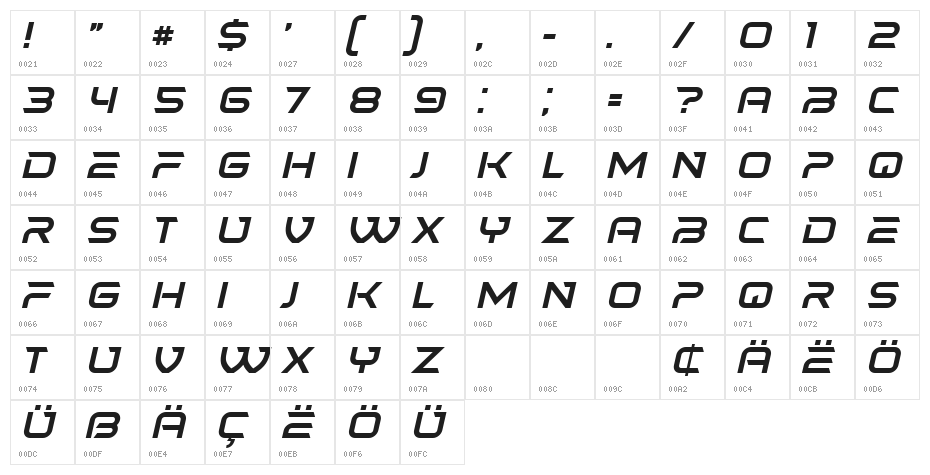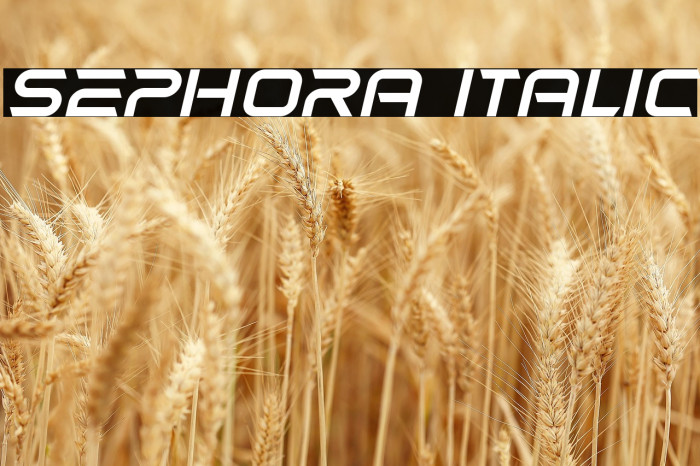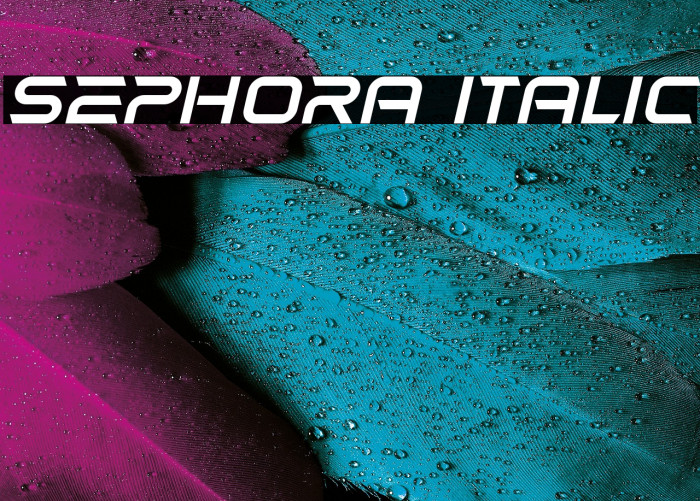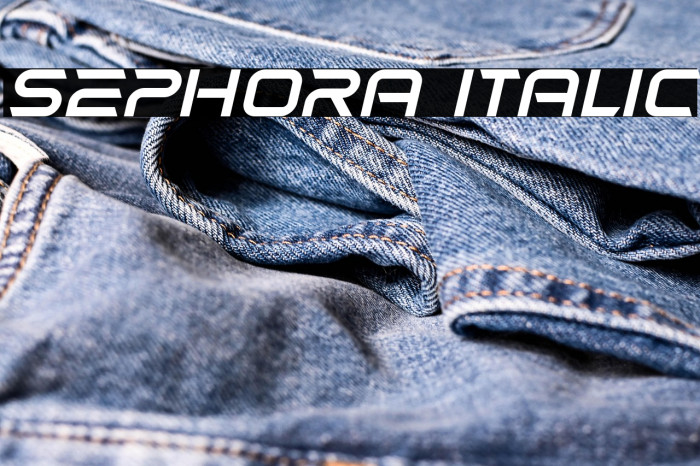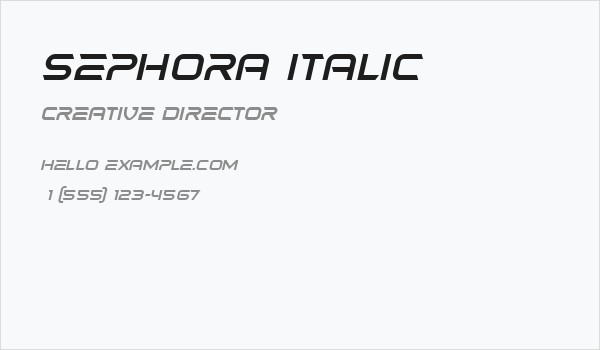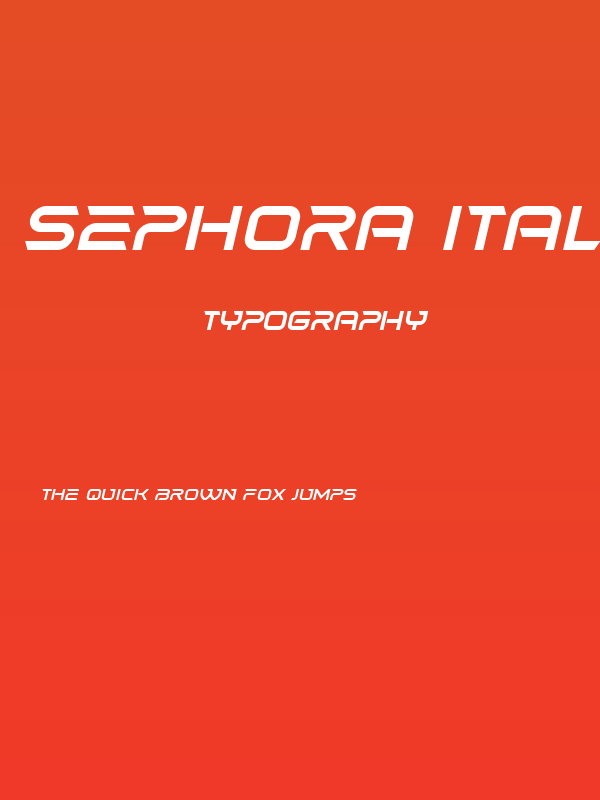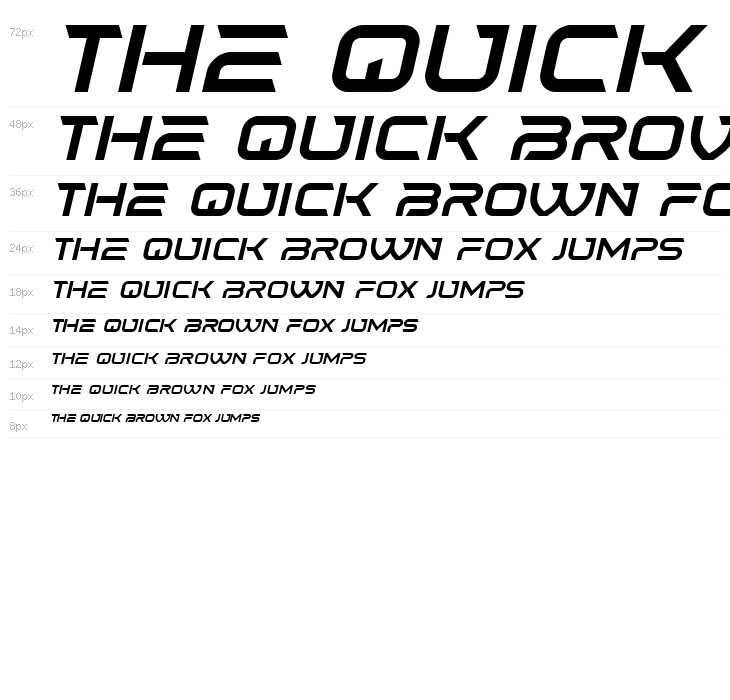
Sephora Italic Font
Sephora Italic Description
This font exhibits a sleek, modern design with a distinct italic slant, giving it a dynamic and forward-moving appearance. The characters are bold and angular, with sharp edges and a geometric structure that conveys a sense of precision and speed. The uppercase letters are particularly striking, with unique shapes that enhance the font's futuristic aesthetic. The numerals and special characters maintain this cohesive style, ensuring versatility across various applications. The consistent stroke width throughout the font adds to its clean and polished look, making it suitable for contemporary design projects.
| Use Case | Logos, Headlines, Branding |
| Proposed Projects | Ideal for branding, advertising, sports team logos, and technology-related projects. |